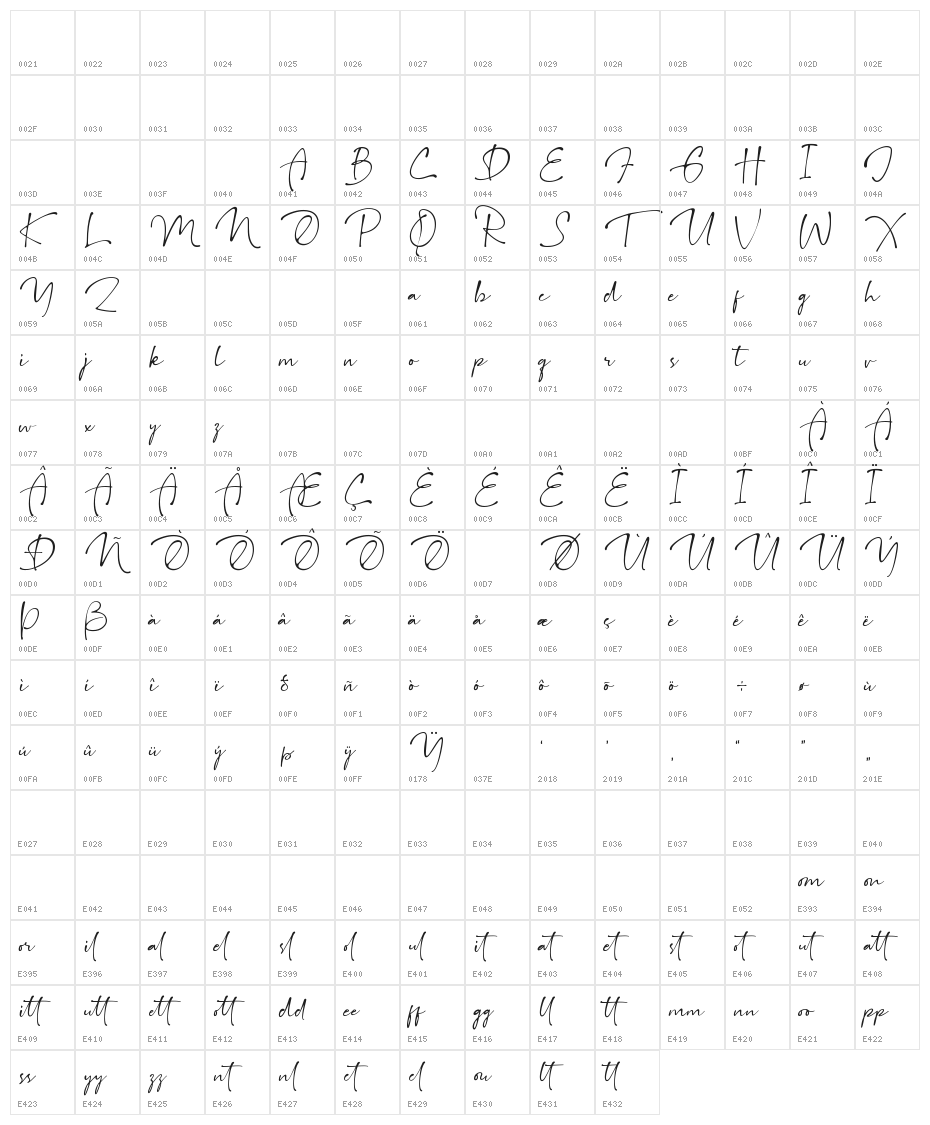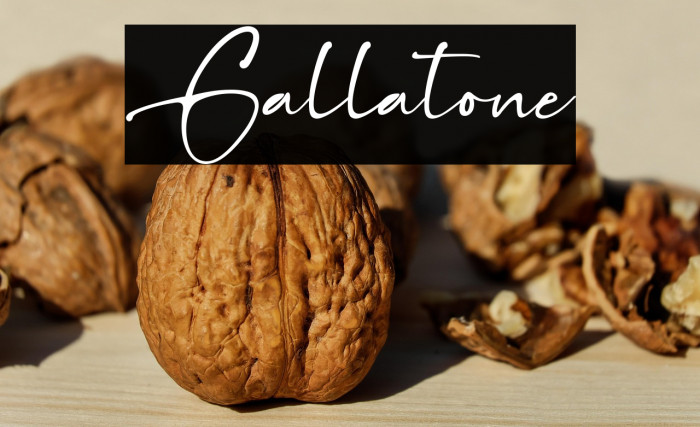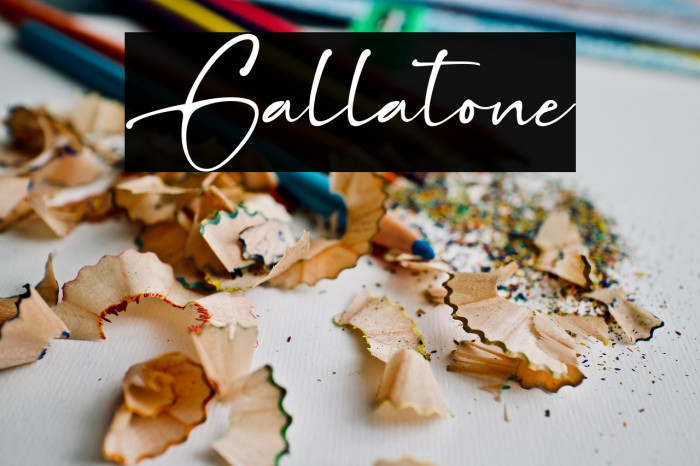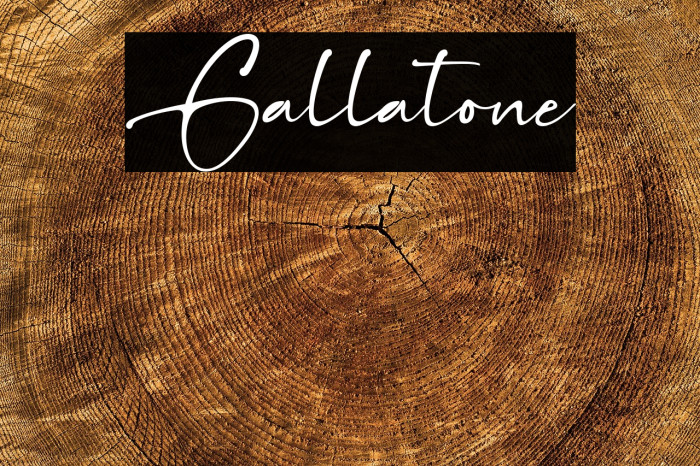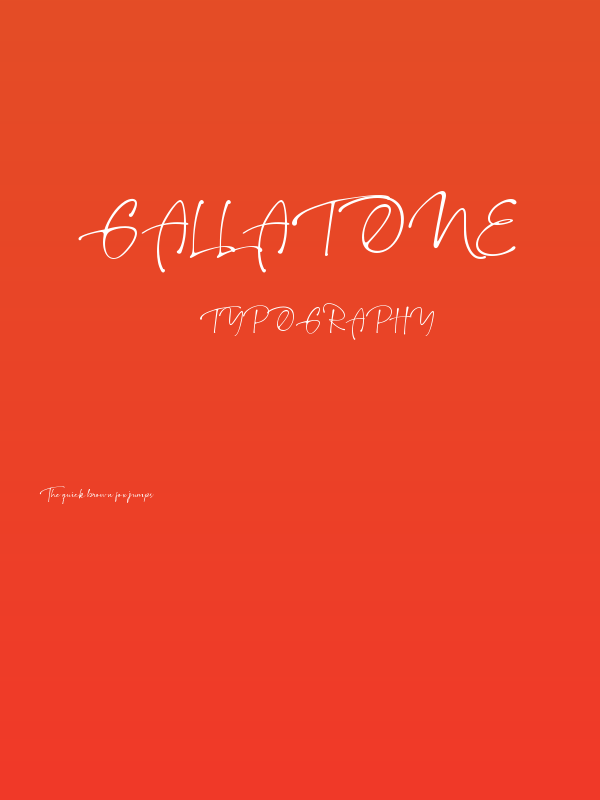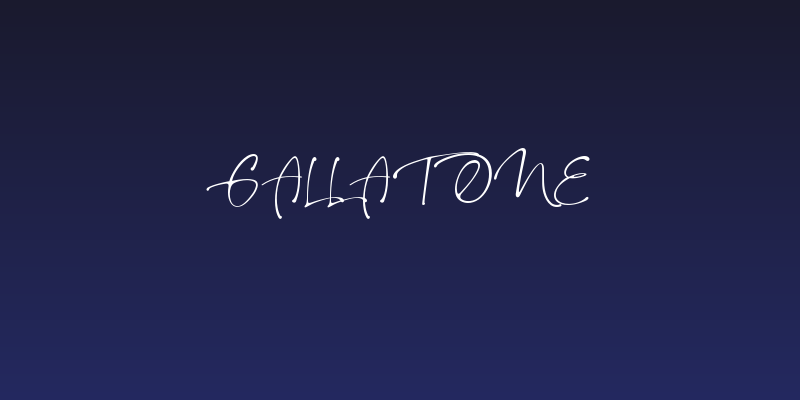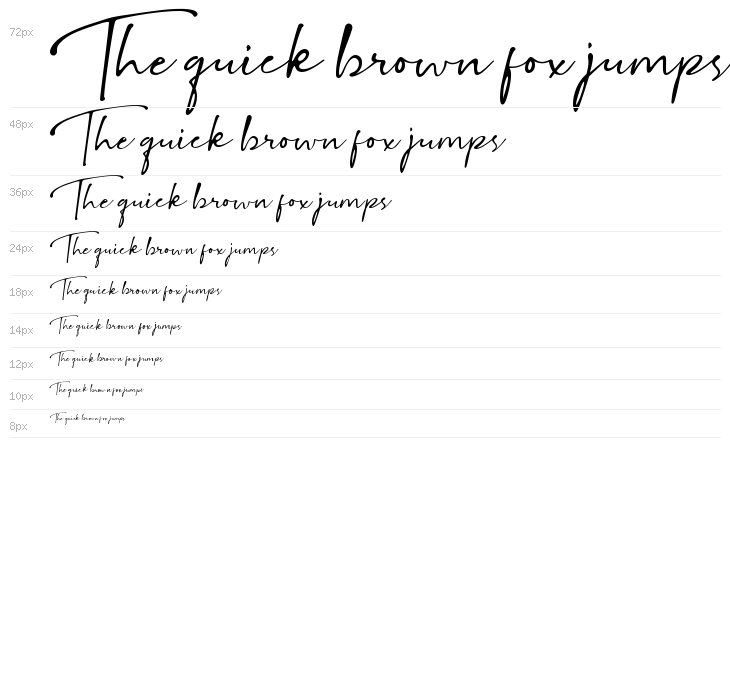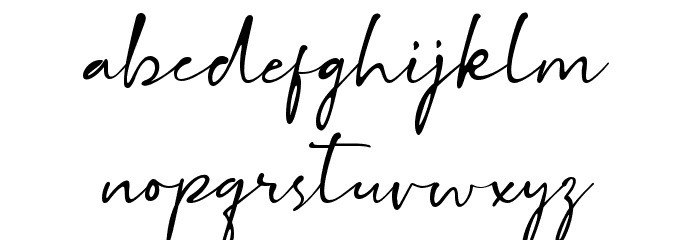
Gallatone Font
Gallatone Description
This font exhibits a dynamic and fluid script style, characterized by its elegant and flowing letterforms. The uppercase letters are tall and slender, with a slight slant that adds a sense of motion and grace. The lowercase letters maintain a consistent rhythm, with smooth curves and delicate connections between characters. The overall appearance is both sophisticated and approachable, making it suitable for a variety of design contexts. The font's unique charm lies in its ability to convey a sense of personal touch while maintaining readability. It is ideal for projects that require a handwritten feel, such as invitations, greeting cards, and personal branding.
| Proposed Projects | Ideal for wedding invitations, greeting cards, personal branding, and artistic projects. |